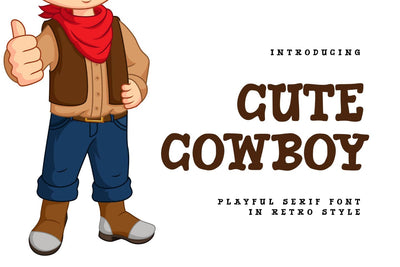
Cute Cowboy
introducing
CUTE COWBOY
- cute serif font-
DELIGHTFUL is retro serif font in cute style.
It is great for branding, quotes, logos, t-shirt designs, tote bag designs, cards, banners, social media, and more.